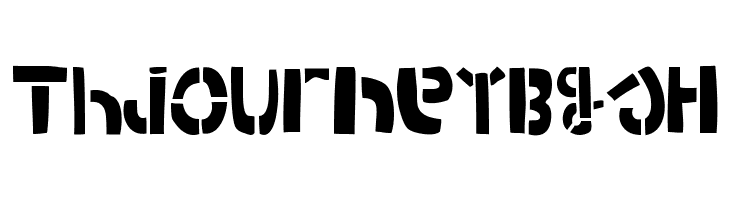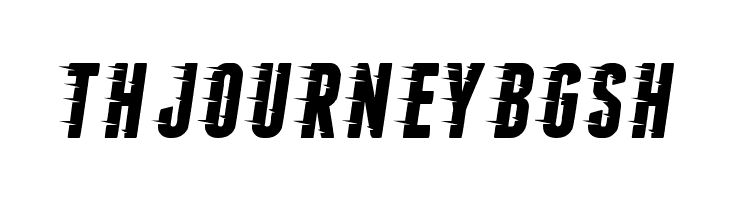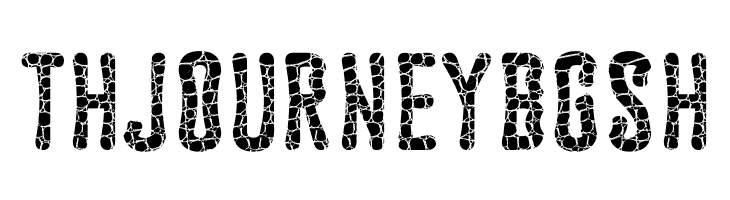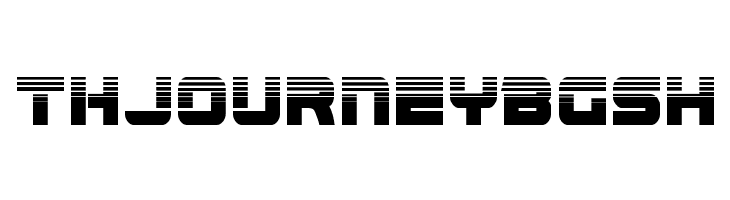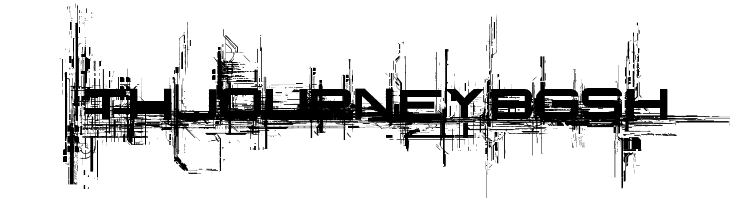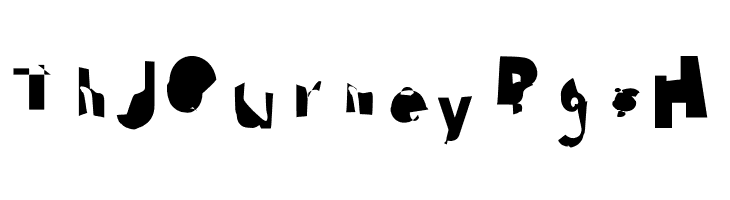
A bold, stencil-style font with a military-inspired, rugged aesthetic.
A bold, dynamic font with angular cuts and a sense of motion.
A bold, textured font with a cracked, organic design.
A bold, futuristic font with a halftone effect, ideal for dynamic designs.
A bold, distressed font with a futuristic, glitch-like appearance.
A chaotic and abstract font with fragmented, distorted letterforms.